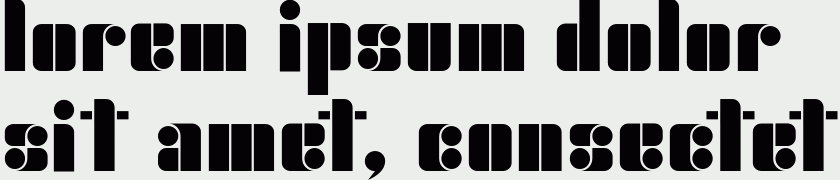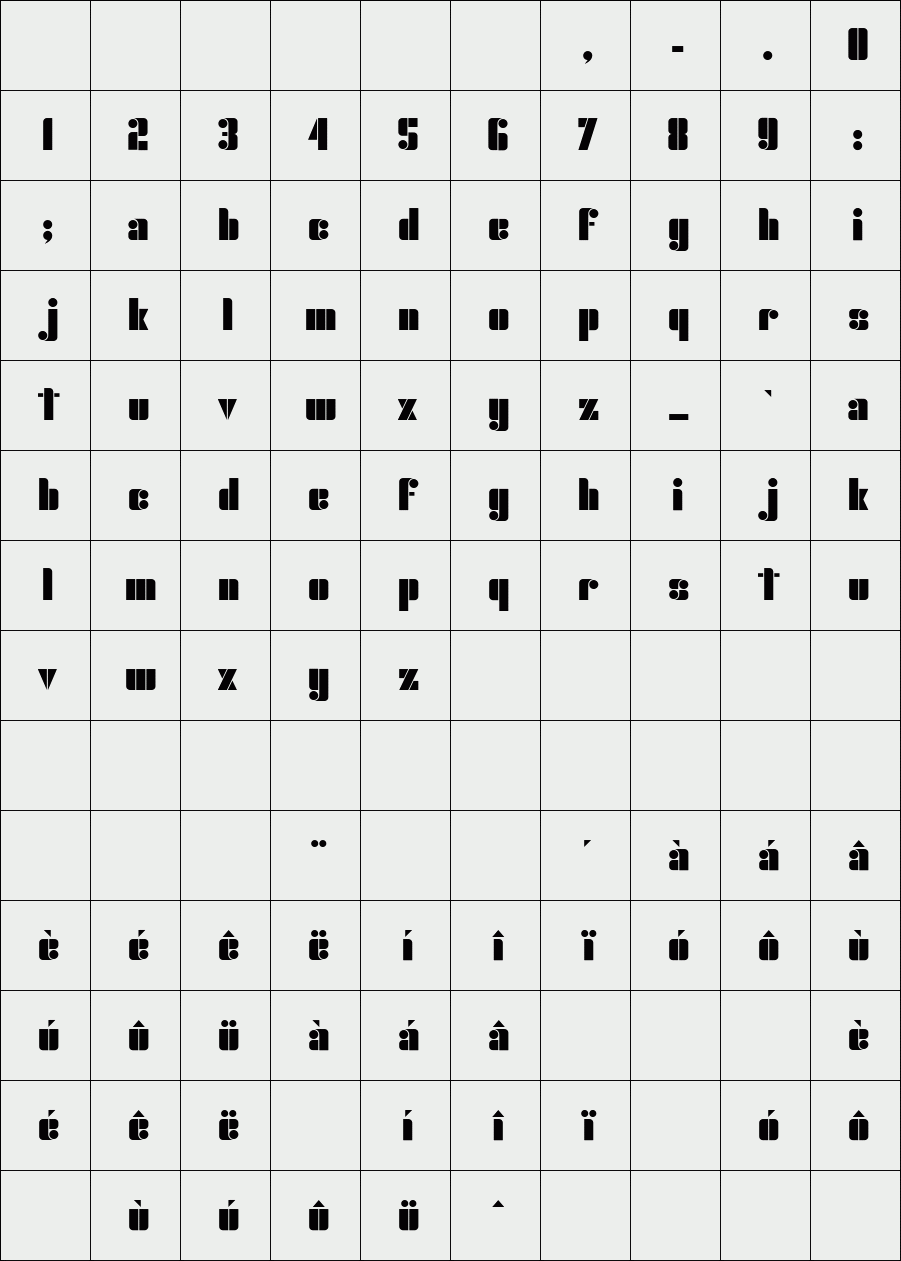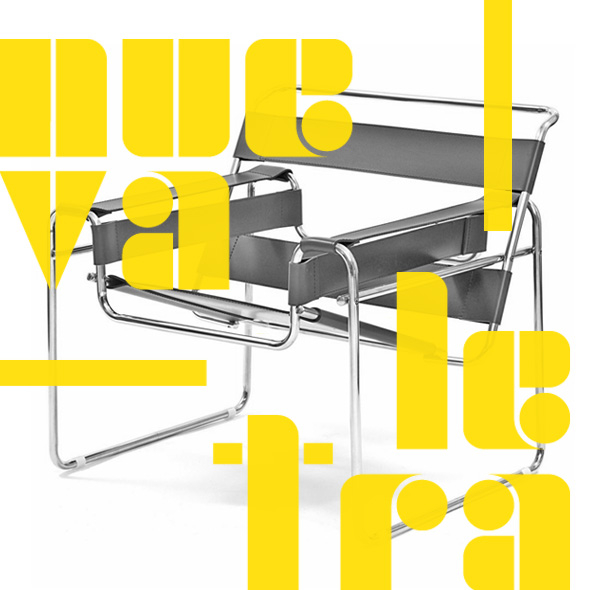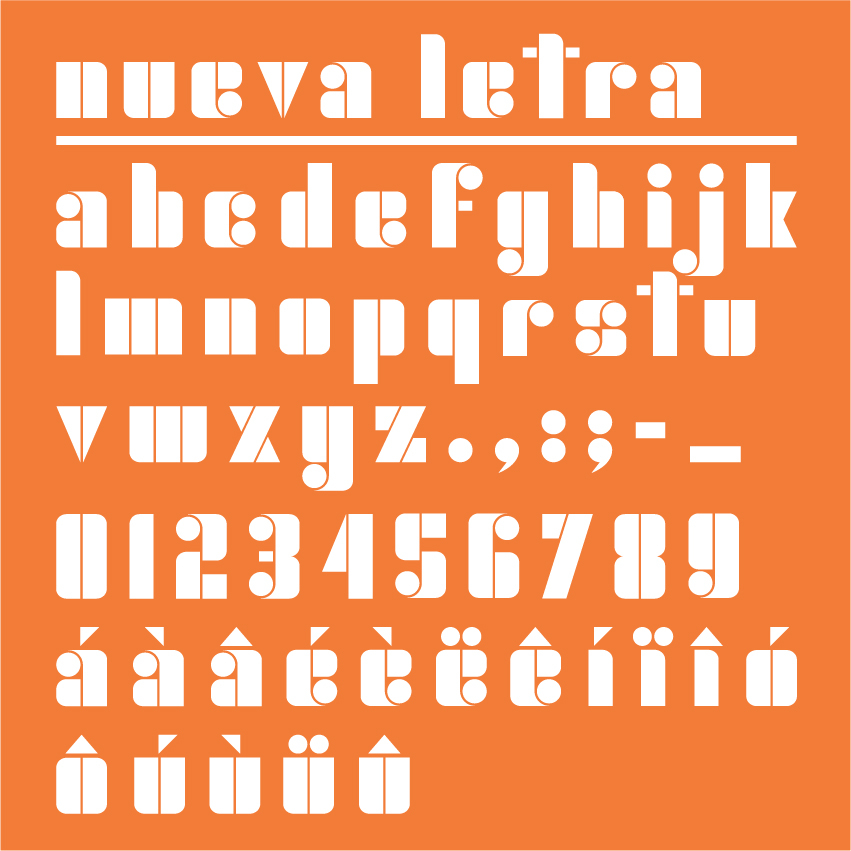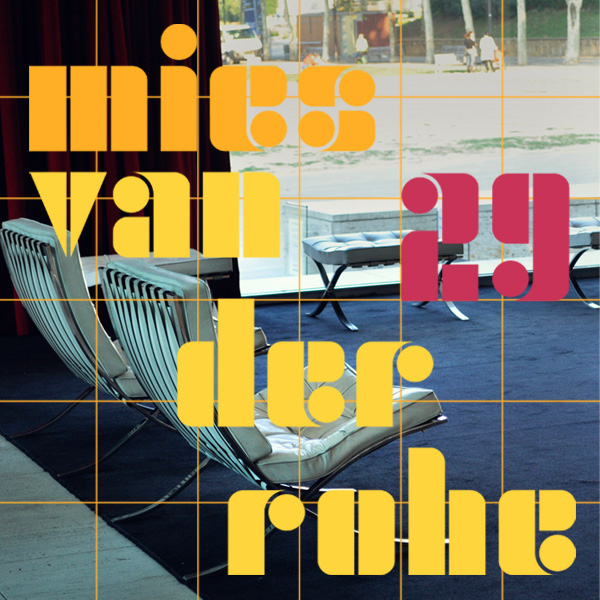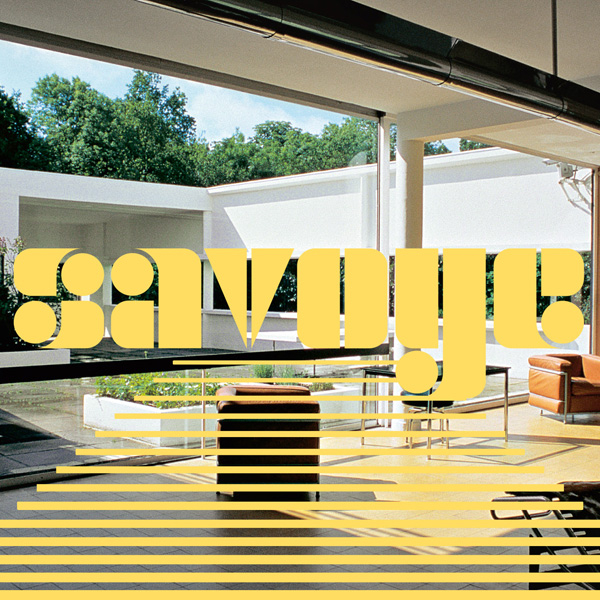
Nueva Letra
Nueva Letra is a typeface influenced by the roots of modern graphic design. It's geometric, simple and good-looking (i think).
Designer: Ernesto Alonso